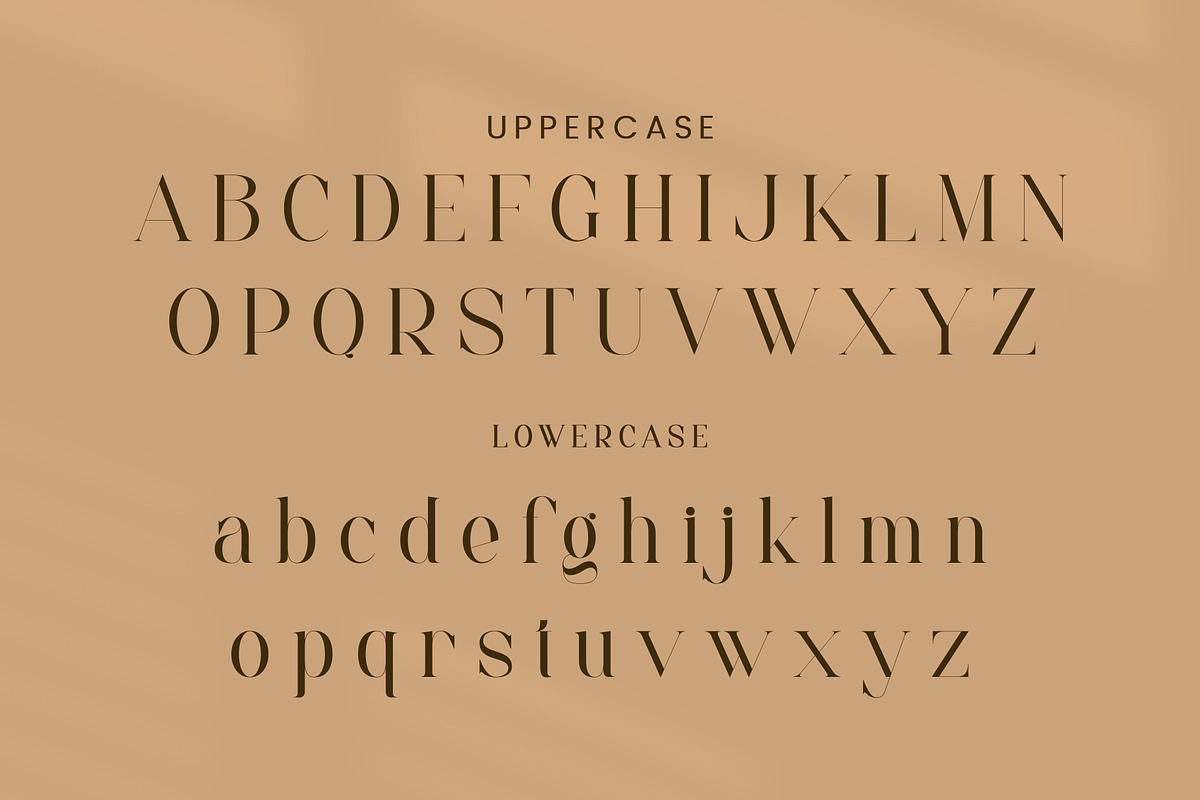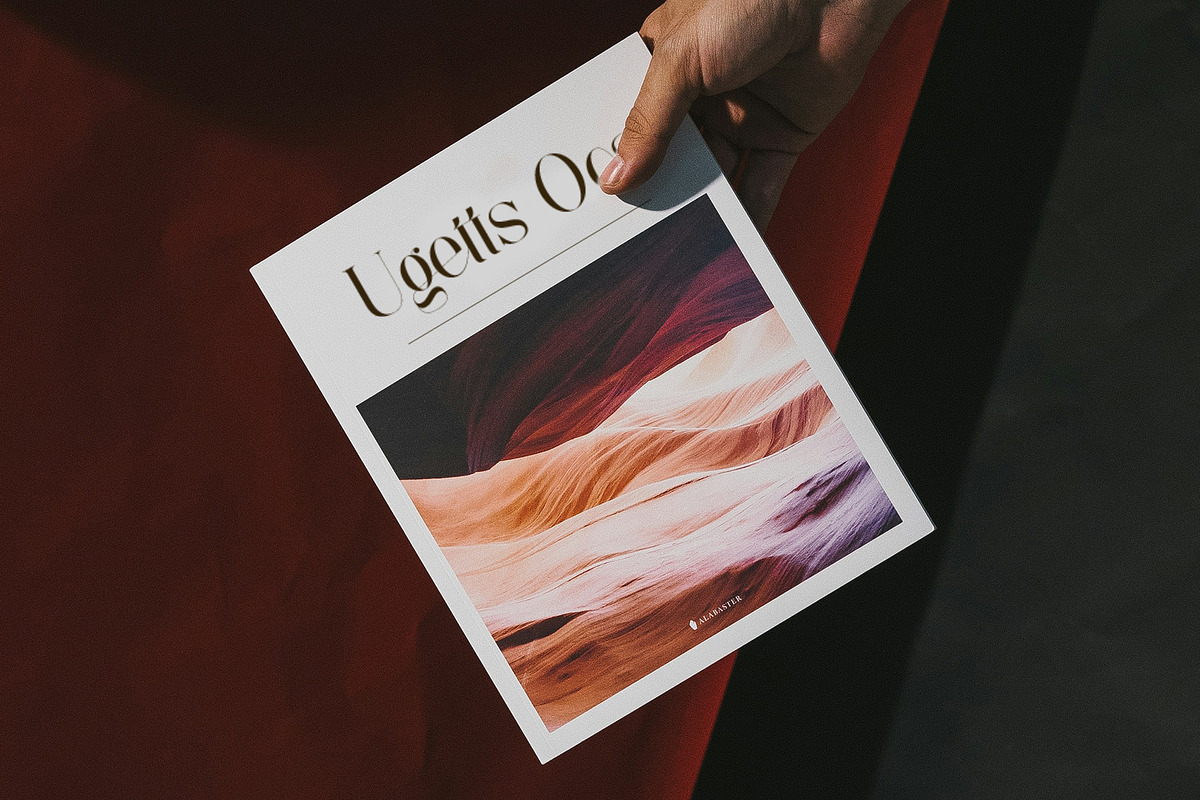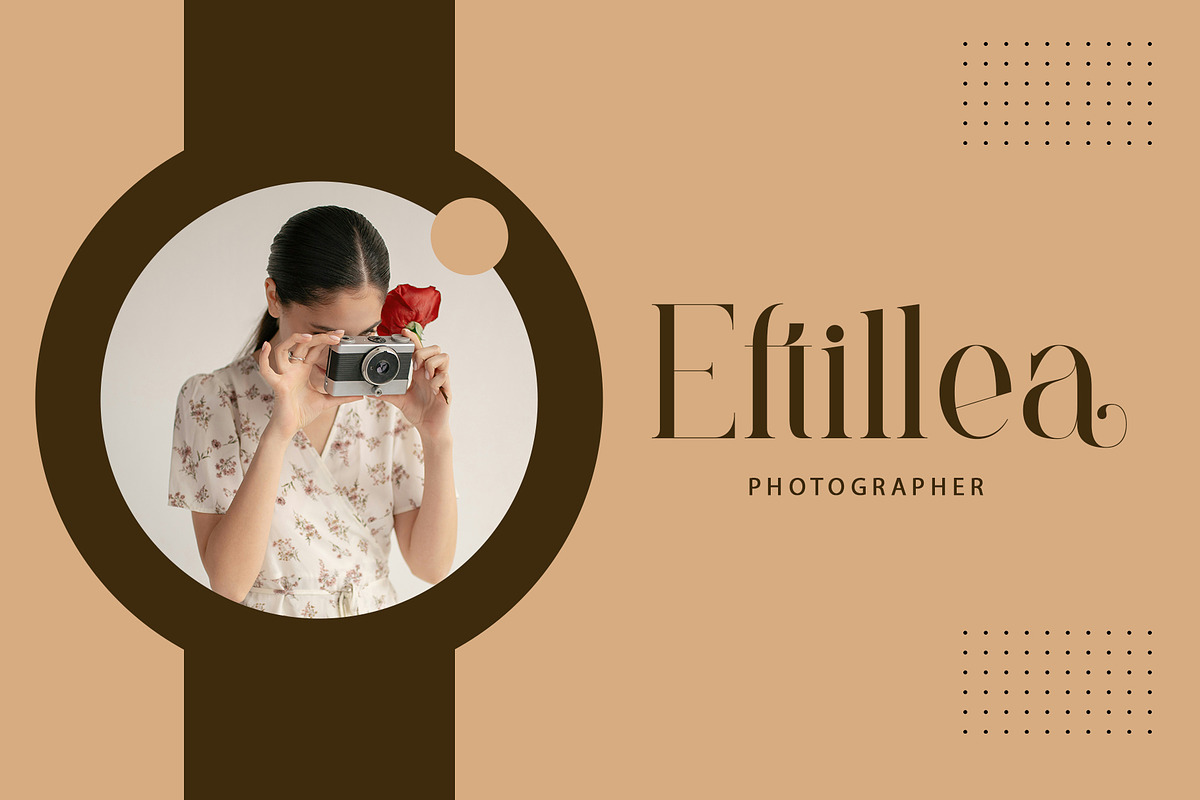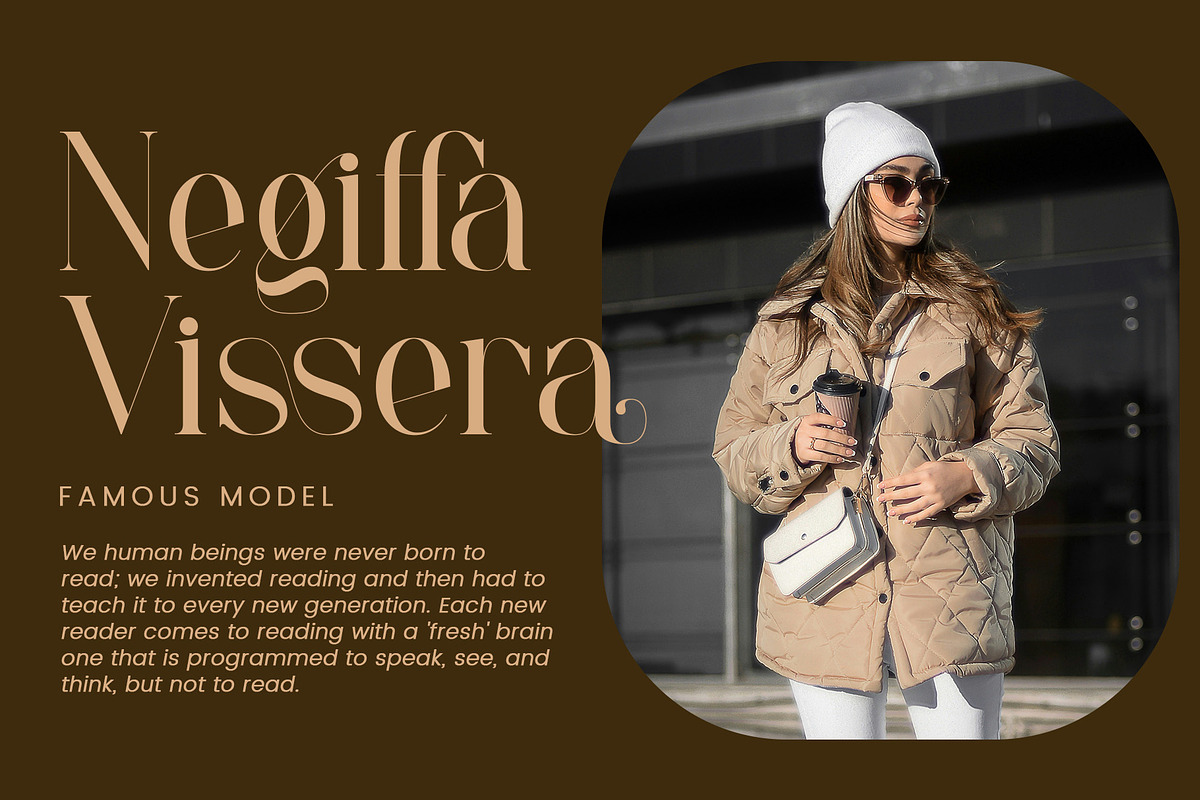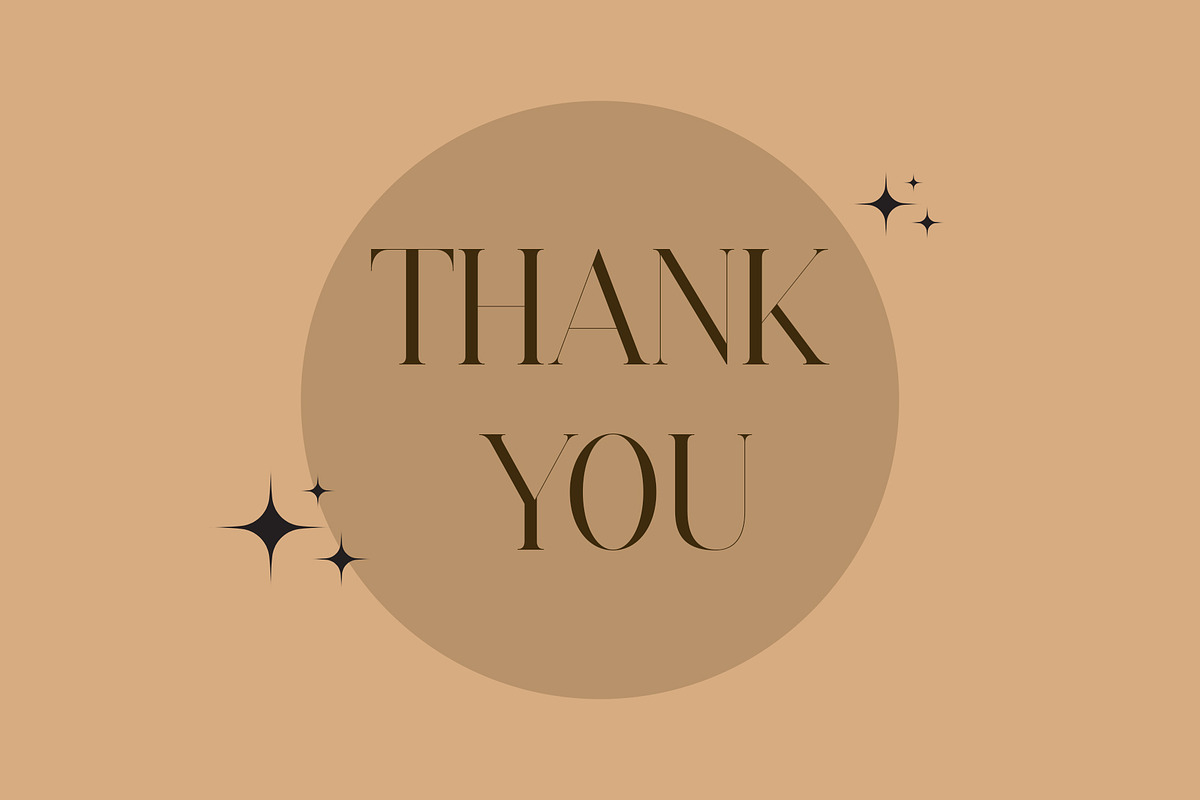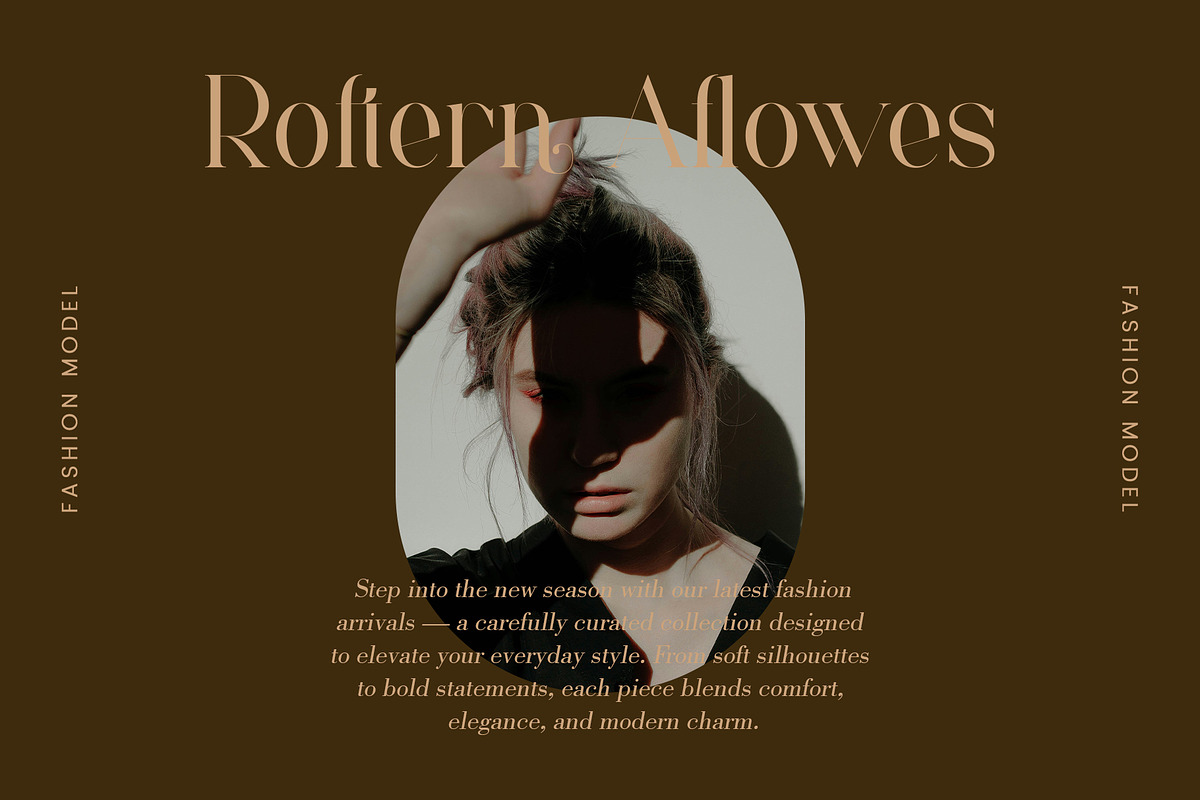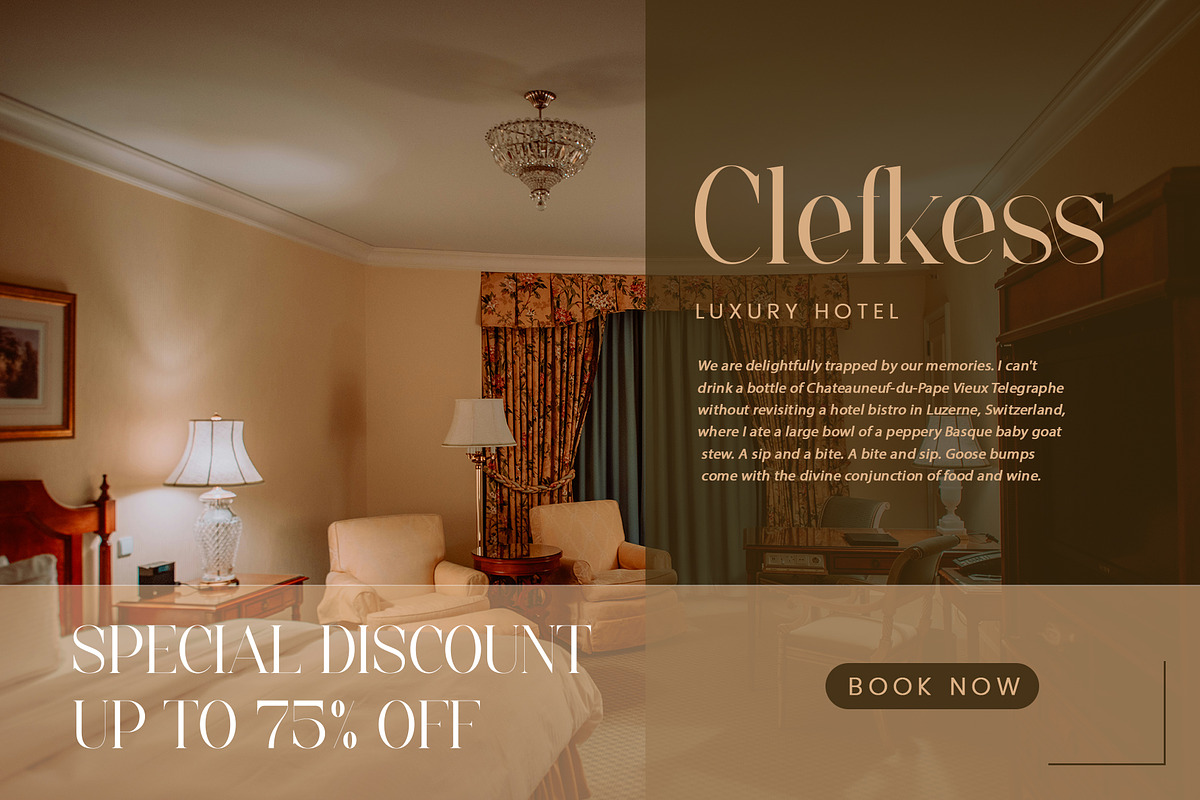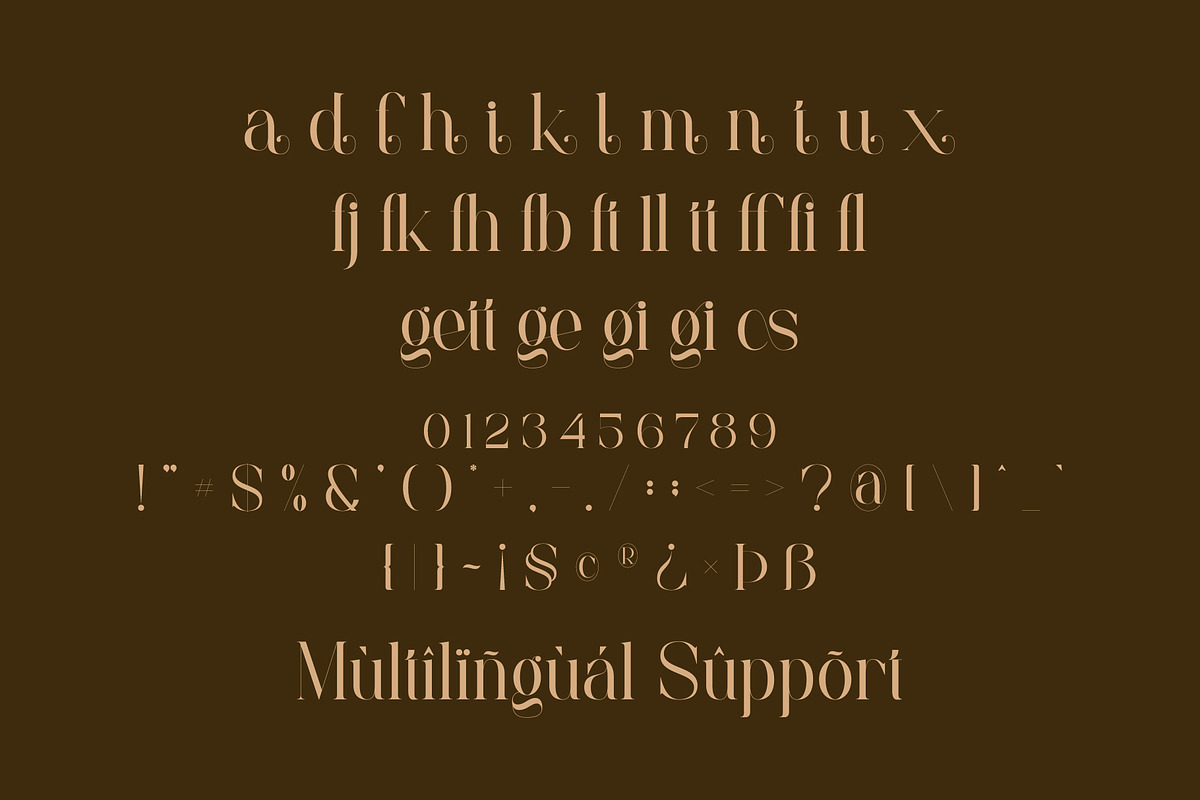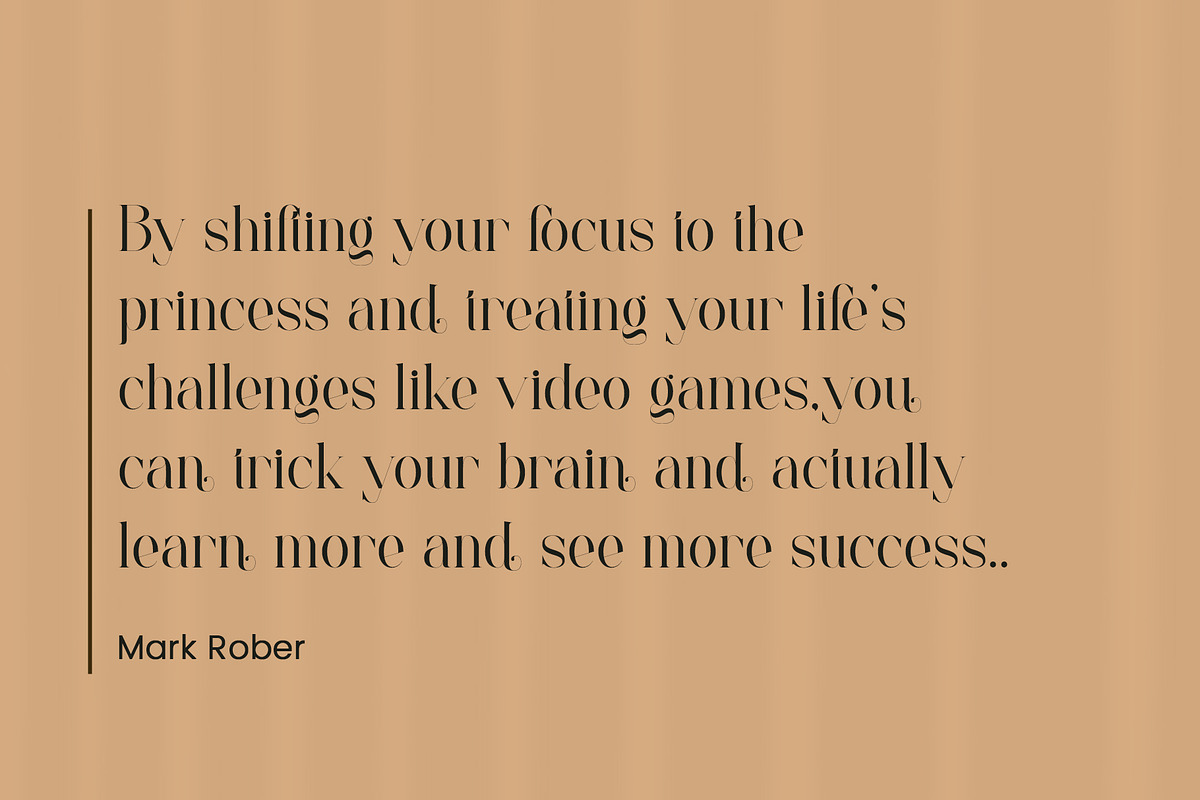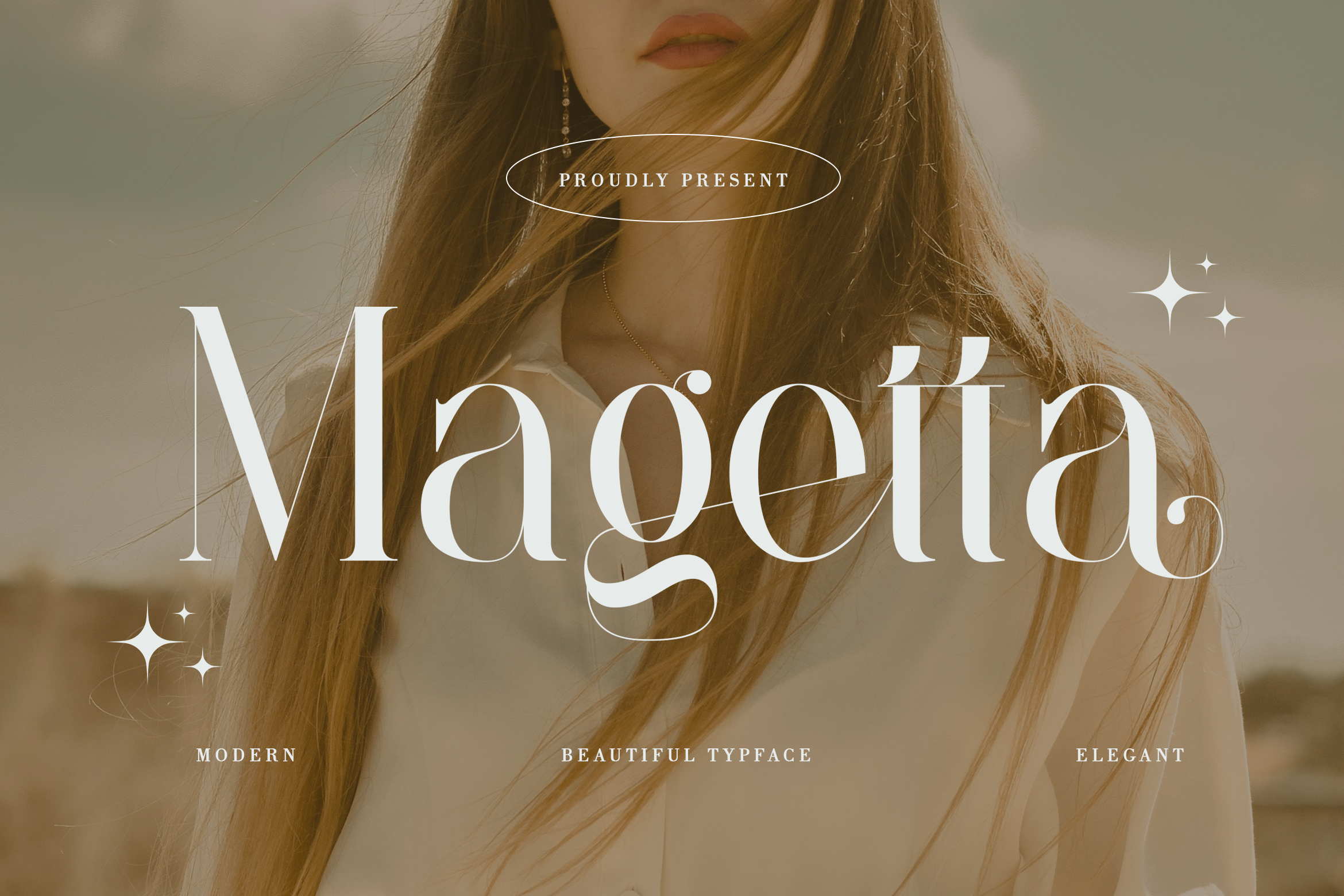
Magetta - Beautiful Serif Font
Magetta Stylish Ligature Typeface, inspired by the famous minimalist logo perfect for the purposes of designing templates, brochures, videos, advertising branding, logos and more.